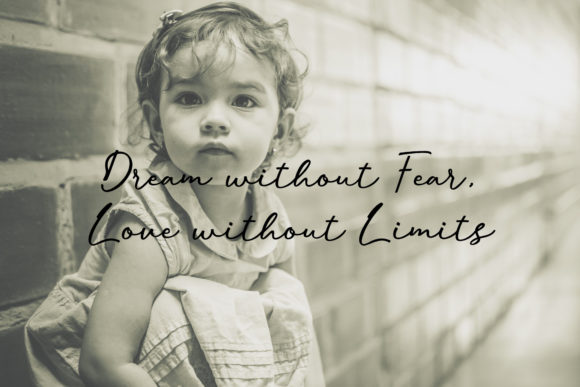
Stanchard Signature Font
db-ku.com - Script & Handwritten -- Stanchard Signature is a stylish and elegant handwritten font ready to impress your audience and make your branding shine. Make your projects stand out with this elegant and wonderful font wherever you use it. Perfect for headings, logos, ads, printed quotes, packaging, and even your website or social media branding.